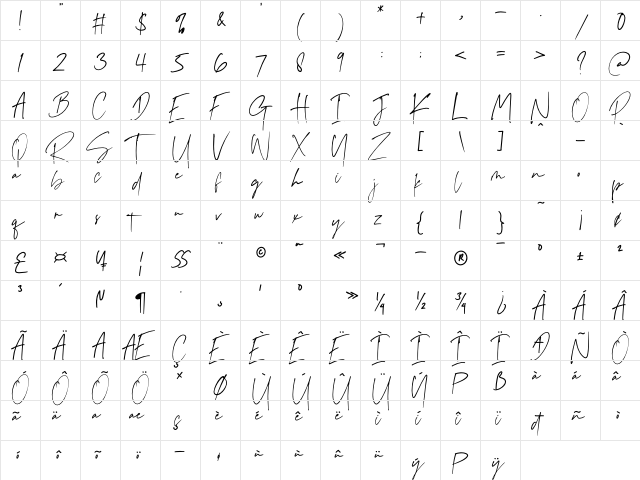
Sansino Regular
Design Context for Sansino Typeface
Sansino is a composed and adaptable typeface that performs quietly and consistently across a wide range of design contexts.